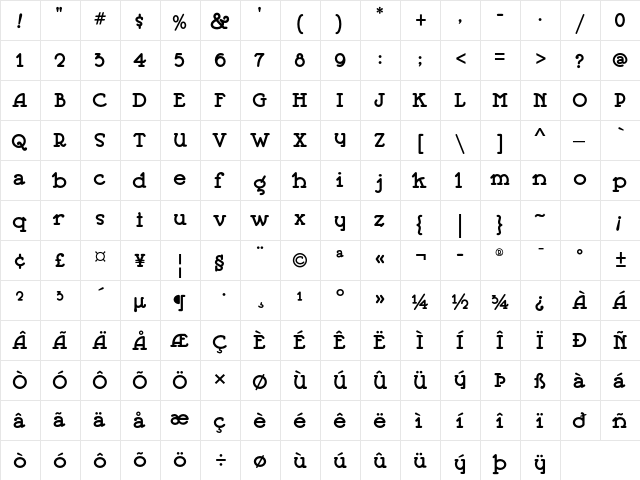
Jeepers ITC Std Regular
Design Context for Jeepers ITC Std Typeface
Jeepers ITC Std takes a measured approach to typography — its balanced proportions and neutral character make it a reliable workhorse for both digital and print work.